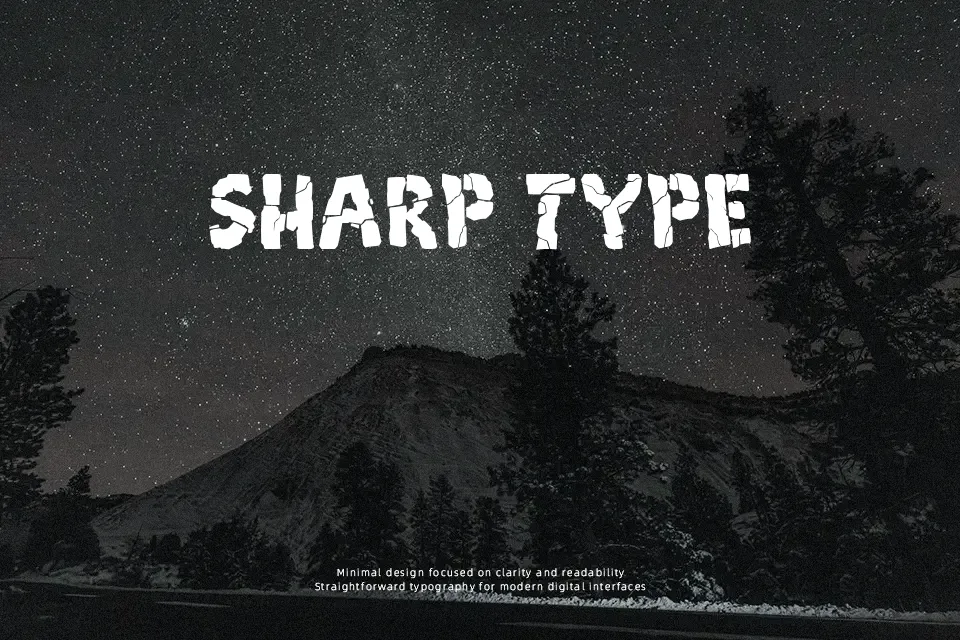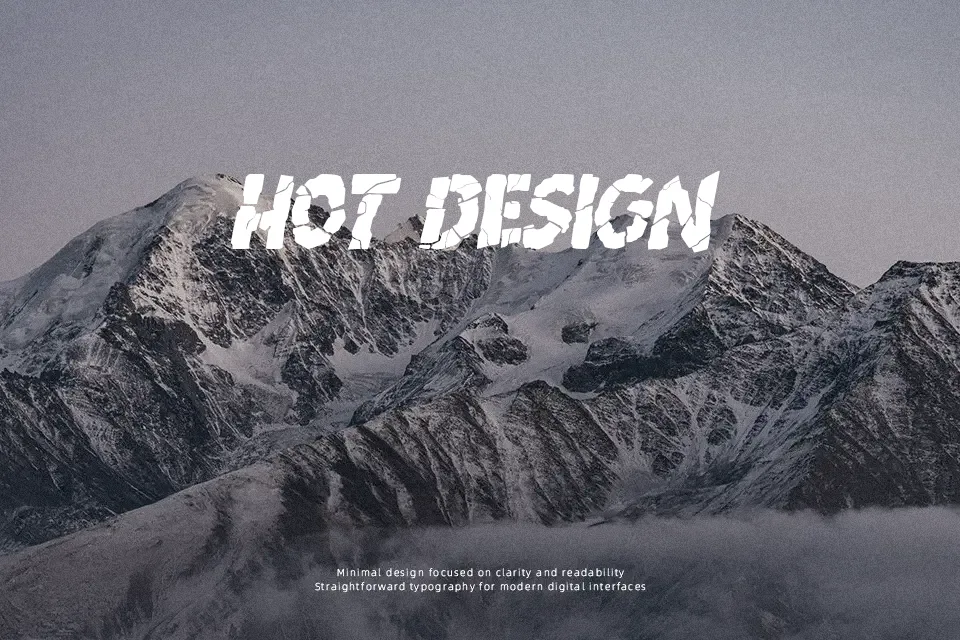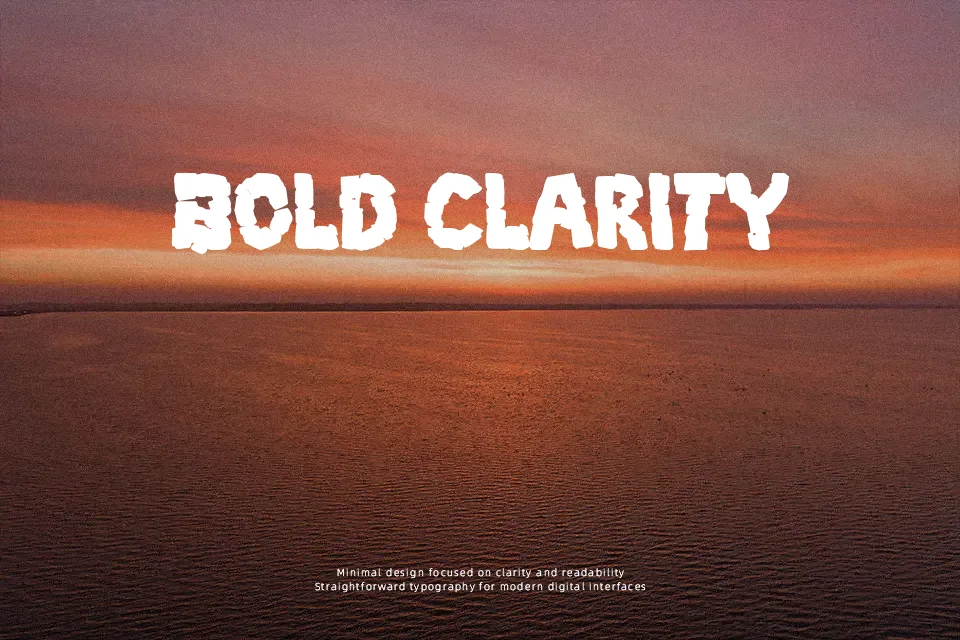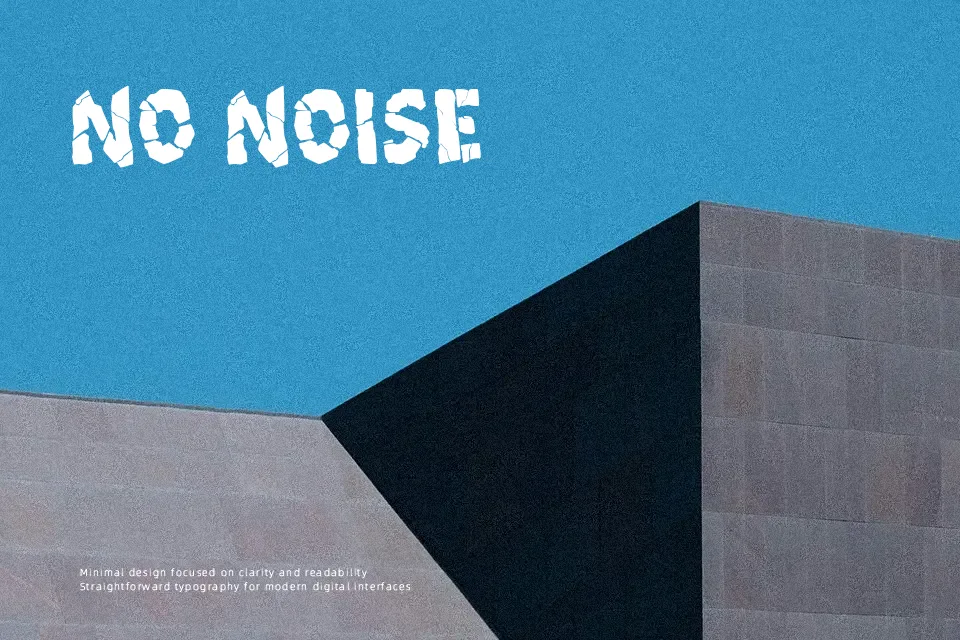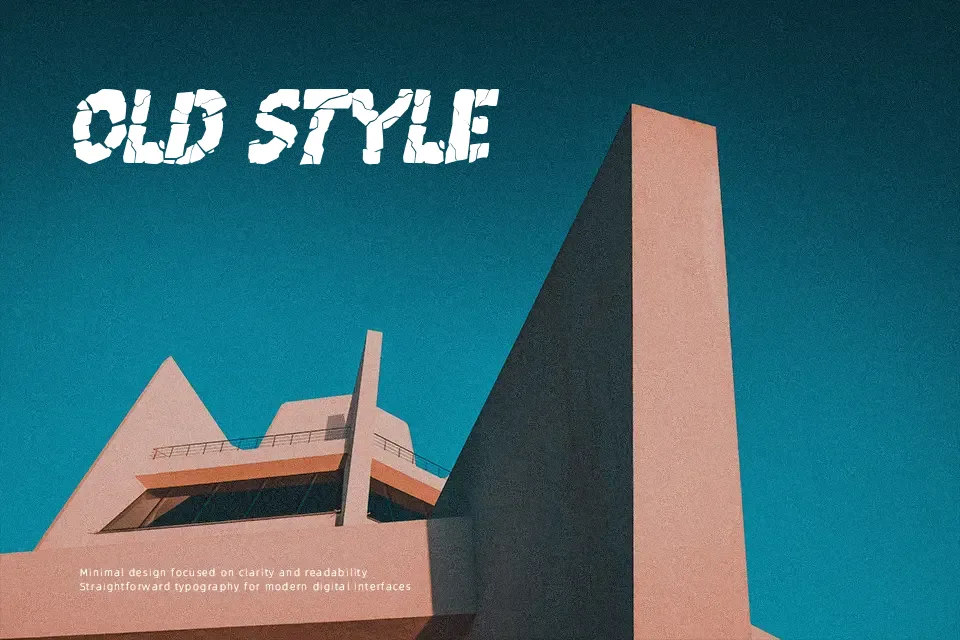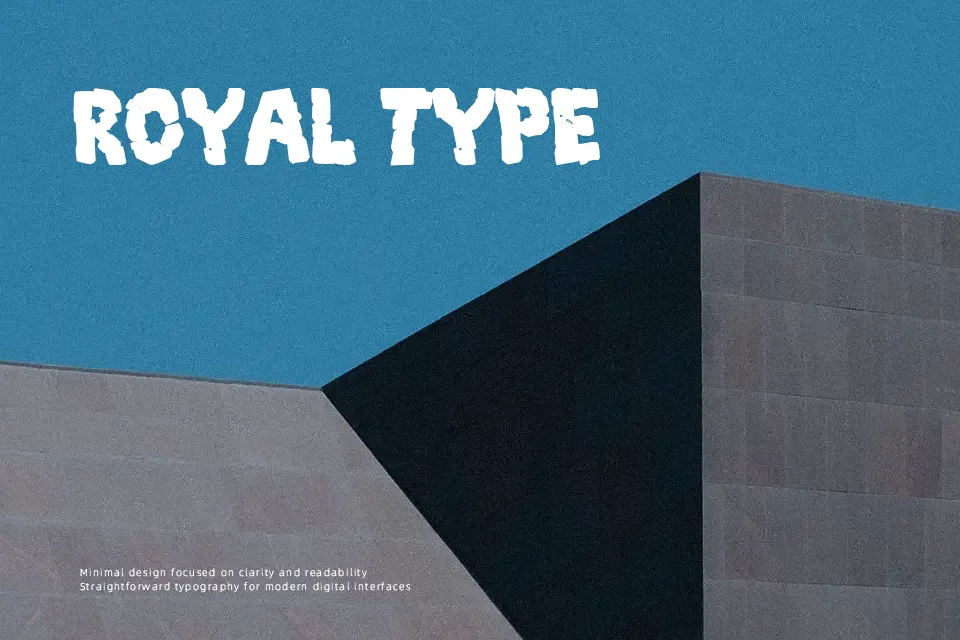
Breakdown PG Font
Designed by PressGang Studios
Breakdown PG is a rough, damaged display typeface with thick strokes, broken contours, and uneven texture that feels like weathered print or crumbling signage. The spacing is relatively tight, and letters lean into each other, which pushes the eye toward short, punchy words rather than long paragraphs. Overall it reads as bold, chaotic, and a bit menacing, so it works nicely for horror posters, grunge band artwork, escape-room branding, or title cards in dark game interfaces. When you keep it large and brief, it has real impact; used small or in dense copy, the erosion quickly turns into visual noise and hurts readability. If you like eroded display fonts but want something more aggressive than a light “worn” look, this sits on the harsher end of that spectrum.
horror or thriller posters and key art
grunge or punk music covers and merch graphics
game logos and in-game title screens with a distressed feel
Halloween event flyers and haunted attraction signage
body text or long paragraphs where clarity matters
formal corporate branding or clean professional documents
small UI labels or dense interface copy
wedding stationery or romantic-themed designs
Perfect for gaming, halloween, and headline, with a creative and decorative style.